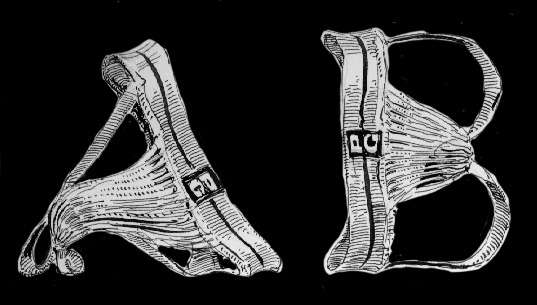
Well, of course this font design made by twisting jock straps into every letter in the alphabet is just the perfect font. How can you improve on a font that uses a garment that is usually the funkiest thing a guy owns?
The designer, Pier Gustafson, is a real graphic designer. He will even do your wedding invitations in his classic Jockstrap font too.
Typeface for Jocks
The Athletic Supporter Font For Intimate Communication